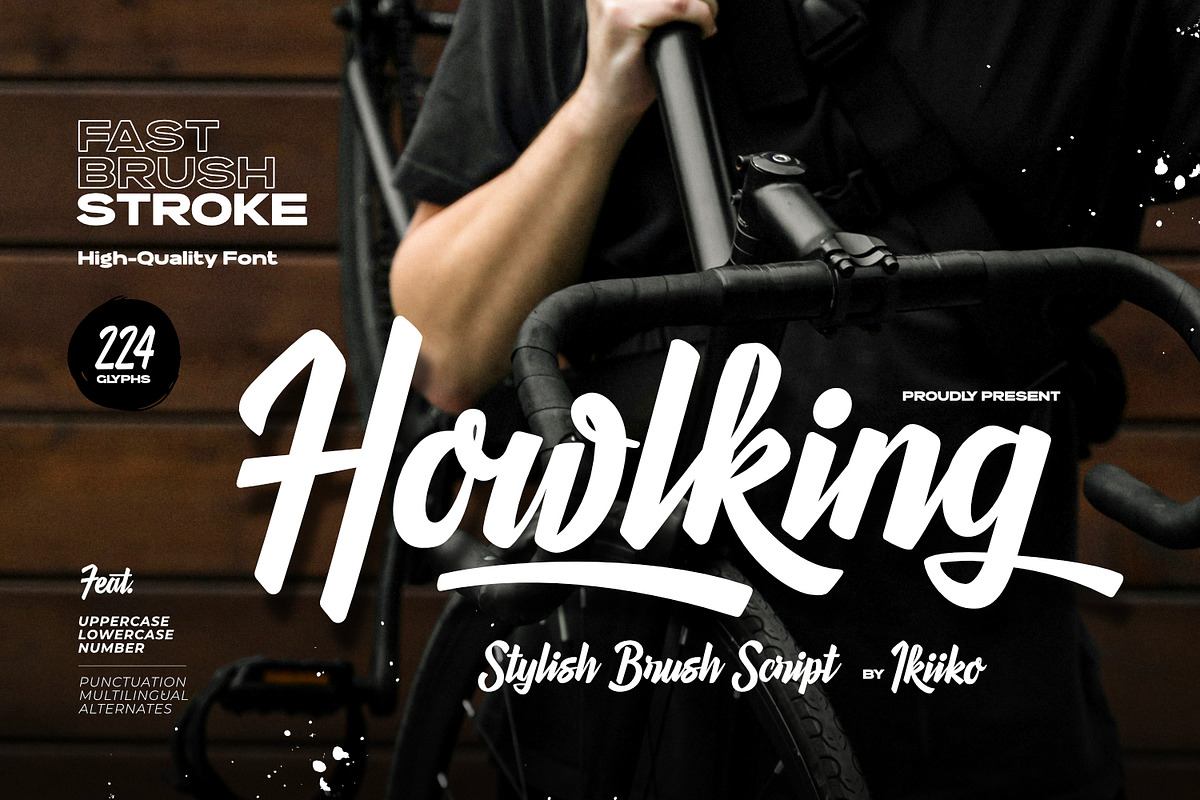
Howlking - Stylish Brush Script Free Download
Howlking – Stylish Brush Script Font Free Download
Howlking – Stylish Brush Script Font Free Download is a bold and expressive typeface that brings the beauty of handcrafted brush lettering to your designs. With its dynamic strokes, fluid curves, and modern flair, Howlking is perfect for fashion branding, posters, social media graphics, album covers, and eye-catching logos.
This font combines raw artistic energy with sophistication, making it ideal for both creative and commercial projects. Whether you're creating a statement headline or a stylish logo, Howlking adds personality, confidence, and style to your typography.
Designers love Howlking for its energetic flow, readability, and versatility across both print and digital platforms. Want to add a touch of brushstroke artistry to your next project? Download Howlking – Stylish Brush Script Font Free Download and let your design make a bold impression.